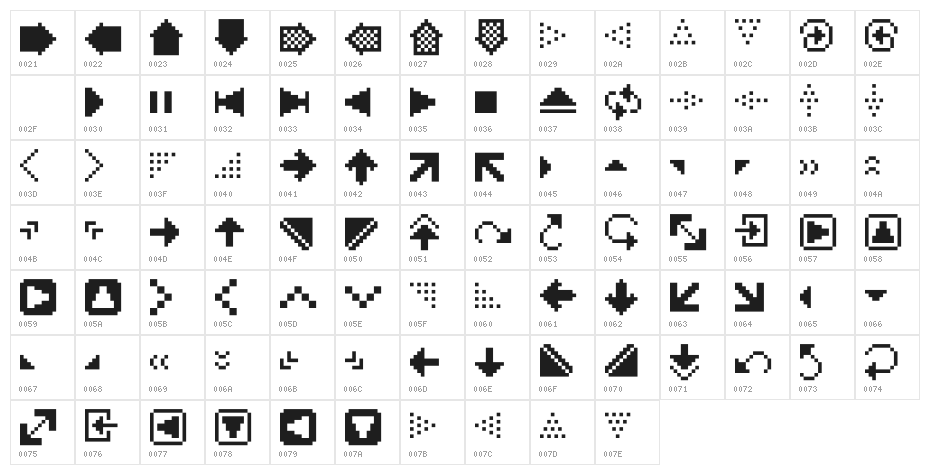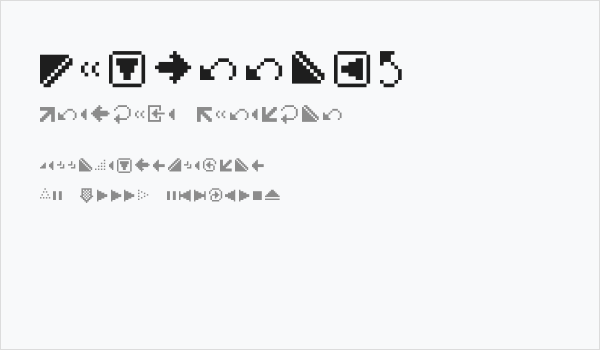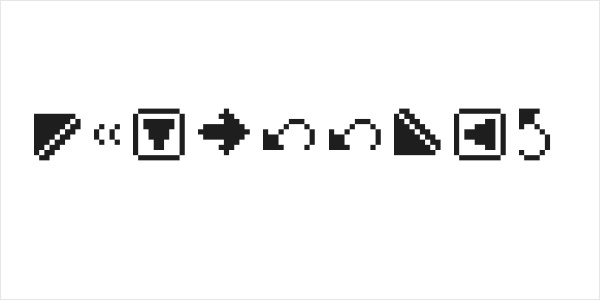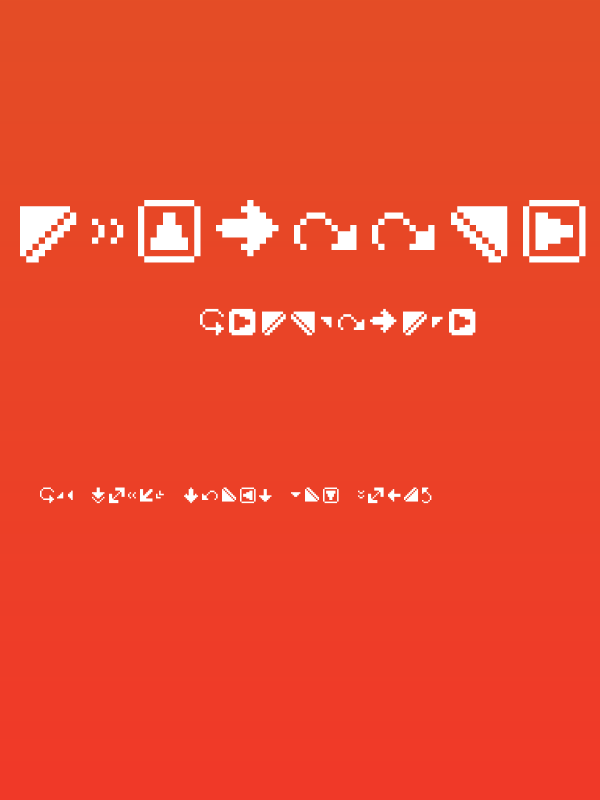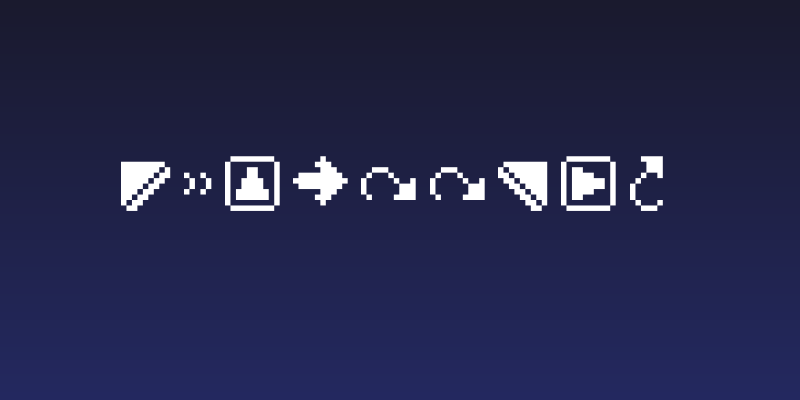
PixArrows Font
PixArrows Description
This collection features a variety of pixelated arrow designs, each crafted with a distinct blocky aesthetic reminiscent of early digital graphics. The arrows vary in direction, style, and complexity, ranging from simple single-direction arrows to more intricate designs with multiple segments and patterns. The pixelated nature gives them a retro, video game-like appearance, making them ideal for projects that require a nostalgic or digital theme. The arrows are presented in different orientations, including up, down, left, right, and diagonal, with some enclosed in squares or circles, adding to their versatility. The bold, high-contrast design ensures visibility and impact, making them suitable for both digital and print media.
| Overall Style | Retro, Digital |
| Use Case | Icons, Digital interfaces, Graphic design |
| Proposed Projects | Ideal for retro-themed video games, digital art projects, or any design requiring a nostalgic digital touch. |